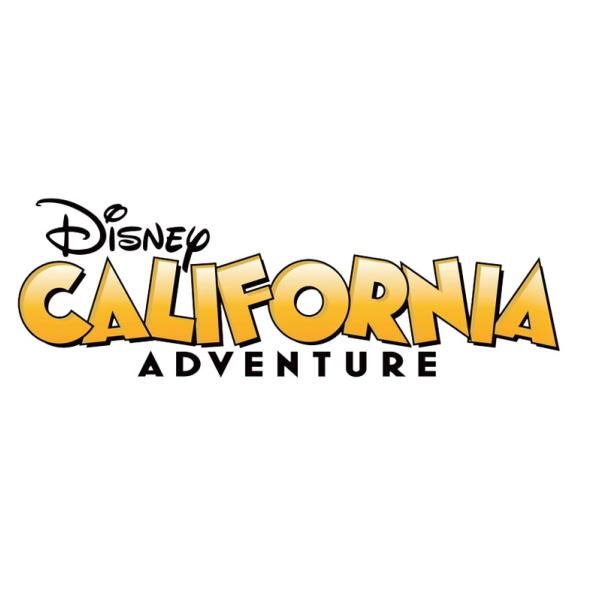
California Adventure Font
AdventureCalifornia Adventure is a theme park located in Anaheim, California and is part of the Disneyland Resort.
The California Adventure logo likely uses the Mostra Nuova typeface. The geometric sans serifs were designed by Mark Simonson in 2009 and are based on the lettering of the Italian Art Deco posters and advertisements from the 1930s.